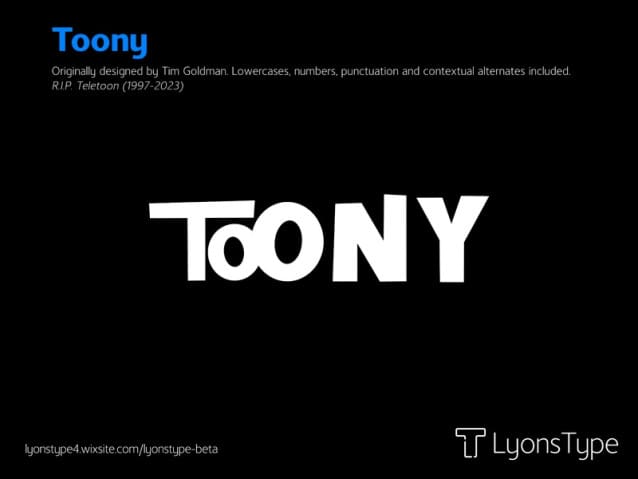
Toony Display Font
Toony Display Font, With a childish style, it will be very suitable for your project, which is related to children. Such as story books, illustrations, comic books, t-shirts, posters, greeting cards, logos, branding, stickers, svg, crafting.
Originally designed by Tim Goldman. Lowercases, numbers, punctuation and contextual alternates included.